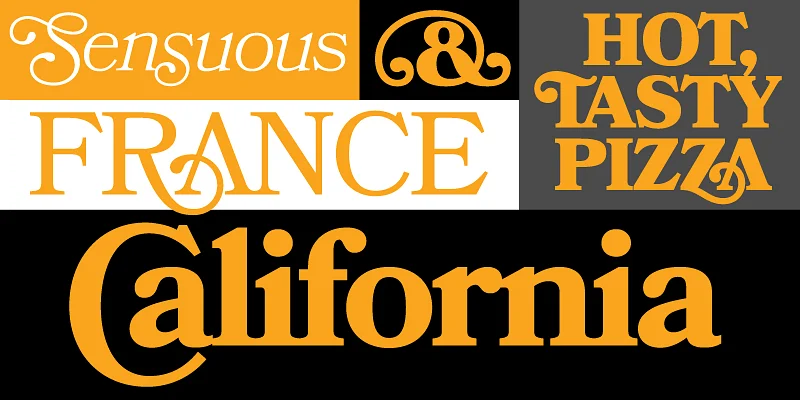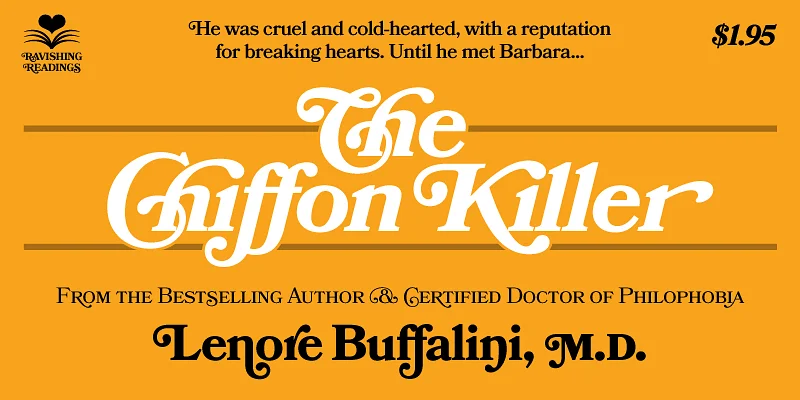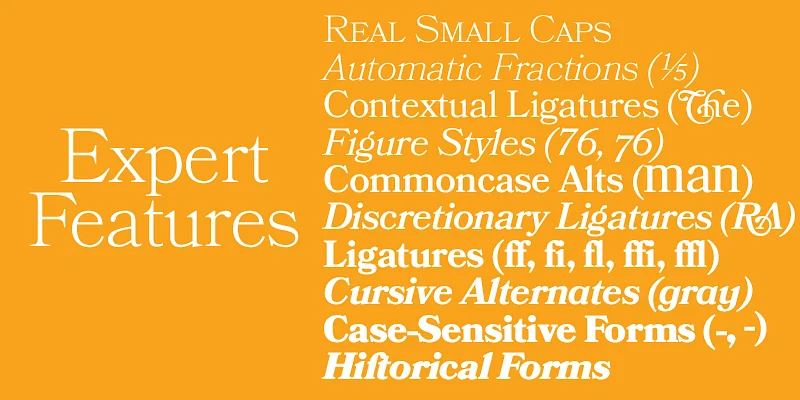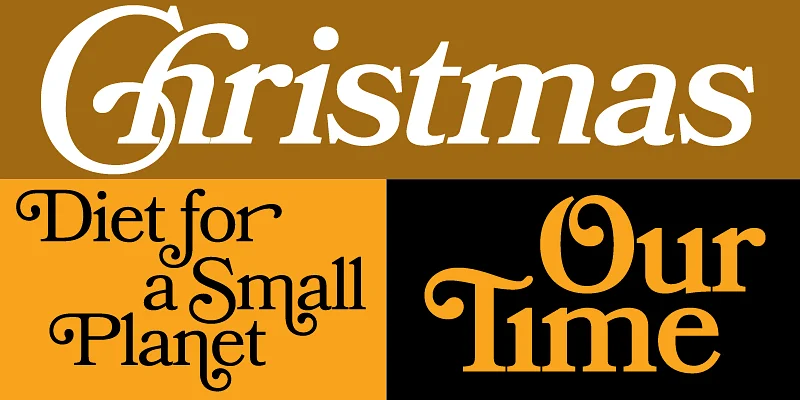
Bookmania Font
The Bookmania Font is perfect for literary publications, academic book designs, scholarly journal layouts, prestigious publishing houses, literary magazine typography, book cover designs, library communications, educational textbook systems, literary festival materials, and distinguished bibliophile communications.
What makes the Bookmania Font so exciting is its passionate celebration of literary culture with scholarly elegance that creates the ultimate typeface for book lovers and literary enthusiasts seeking authentic bibliophile sophistication. This distinguished typeface features classical book-inspired letterforms, scholarly character proportions, and literary design elements that perfectly capture the essence of intellectual passion and literary devotion. The font's bookish personality and scholarly sophistication make it an exceptional choice for publishers, libraries, and literary organizations seeking to communicate literary excellence, intellectual curiosity, and authentic bibliophile culture with timeless literary appeal.
The Bookmania Font family includes literary variations and scholarly alternates, featuring multiple reading weights, academic character options, and book-inspired styling elements. Each variation maintains the signature literary appeal while offering different levels of scholarly expression and bibliophile sophistication, giving designers extensive creative possibilities for crafting authentic literary communications and intellectual brand personalities that celebrate the love of books and reading.
This exceptional Bookmania Font represents the ultimate literary typography solution for book enthusiasts who need authentic bibliophile aesthetics that resonate with literary communities and scholarly audiences. Whether you're developing literary brand identities, creating academic publications, or designing book-focused marketing materials, this versatile literary font delivers compelling results that connect with audiences seeking genuine literary culture and intellectual sophistication.
The scholarly design characteristics of Bookmania Font showcase masterful literary typography craftsmanship, with each letter featuring book-inspired construction elements and academic design details that enhance its literary credibility and bibliophile authenticity. The font's comprehensive character set includes uppercase and lowercase letters, numerals, scholarly punctuation, and literary symbols, ensuring complete functionality for diverse literary projects and international academic applications.
Expertly designed for both digital and print literary applications, this remarkable font maintains its bookish character and scholarly elegance across various sizes and formats. From large-scale library displays to detailed academic texts, Bookmania Font performs exceptionally while preserving its distinctive literary personality and authentic bibliophile appeal.